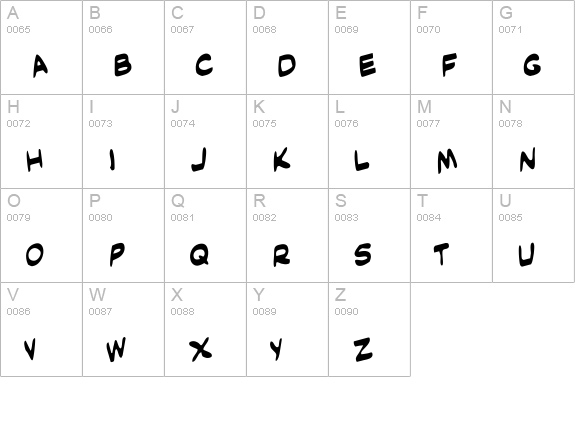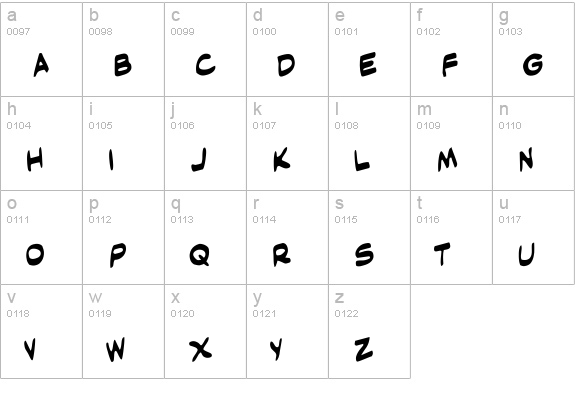
Introducing the captivating and mesmerizing Masked Marvel Rotate font, a true embodiment of artistic genius. This font effortlessly combines the boldness of traditional typography with a modern twist, making it perfect for any creative project that seeks to make a powerful impact. Masked Marvel Rotate boasts a unique and distinctive design that will instantly captivate the attention of viewers. Its intricate details and carefully crafted curves give each letter a sense of dynamism and motion, creating a visually stunning experience. With its playful yet sophisticated appearance, this font is versatile enough to be used in a wide range of design applications, from logos and branding to website headers and social media graphics. What truly sets Masked Marvel Rotate apart is its ability to evoke a sense of mystery and intrigue. Each letter seems to be meticulously masked, revealing just enough to pique curiosity while leaving the rest to the imagination. This font is an invitation to explore the unknown, to embrace the enigmatic and to challenge the conventional. But that's not all – Masked Marvel Rotate is also available for free! You read that right. This extraordinary font can be freely downloaded at FontsMarket.com, a leading platform for high-quality and innovative fonts. With just a few simple clicks, you can bring this captivating typeface into your design arsenal, allowing your creativity to soar to new heights. Whether you're a professional designer looking to add a touch of magic to your projects or an aspiring creator eager to make a bold statement, Masked Marvel Rotate is the ultimate font choice. Its seamless integration of style and substance, combined with its free availability, makes it a must-have for anyone seeking to make a lasting impression. Don't wait another moment – unleash your creativity and download Masked Marvel Rotate today, exclusively at FontsMarket.com. Let this font be your guide as you embark on a journey of creative exploration, and watch as your designs come to life with unparalleled elegance and charm.